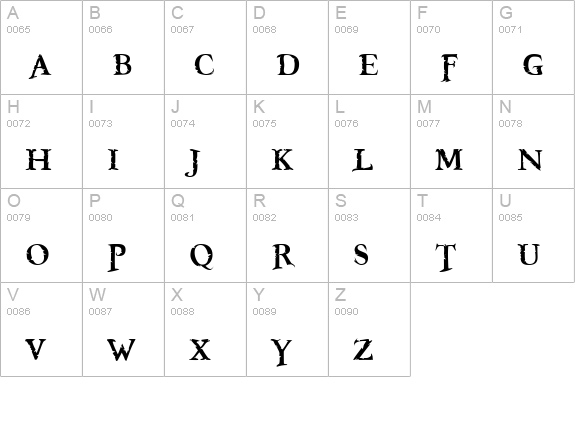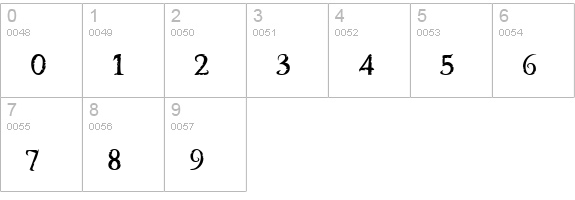
Freebooter Font Details
Freebooter font is a captivating and adventurous typeface that embodies the spirit of exploration and boldness. With its distinctive and ornate letterforms, Freebooter exudes a sense of swashbuckling charisma that is perfect for adding flair to your designs. This font is a versatile choice for projects that require a touch of drama and sophistication. The best part is that Freebooter font is available for free download at FontsMarket.com. Take advantage of this opportunity to enhance your designs with this unique and eye-catching typeface. Let Freebooter font be your companion on the journey to creating stunning and memorable designs.